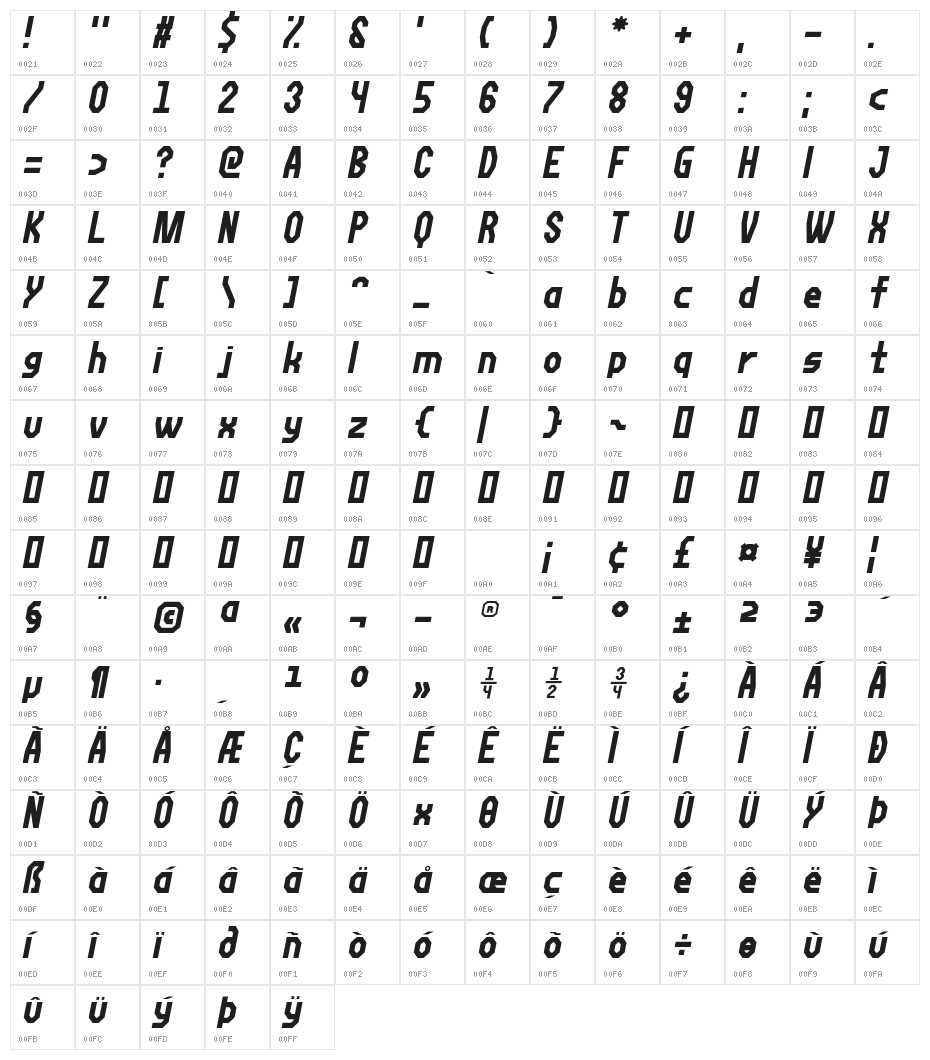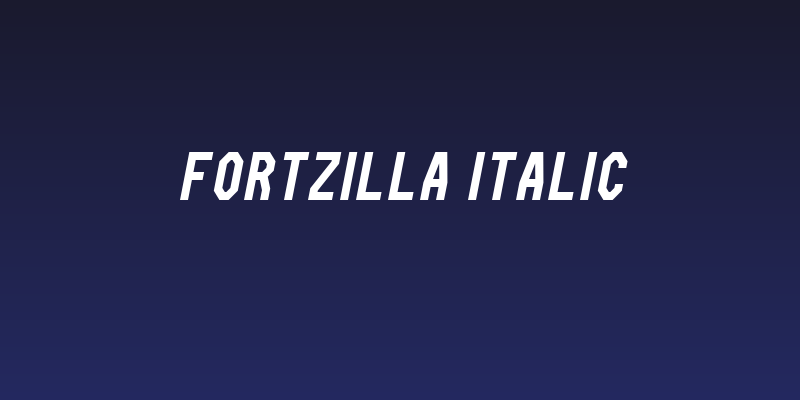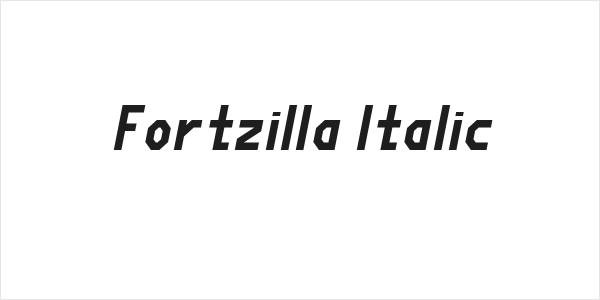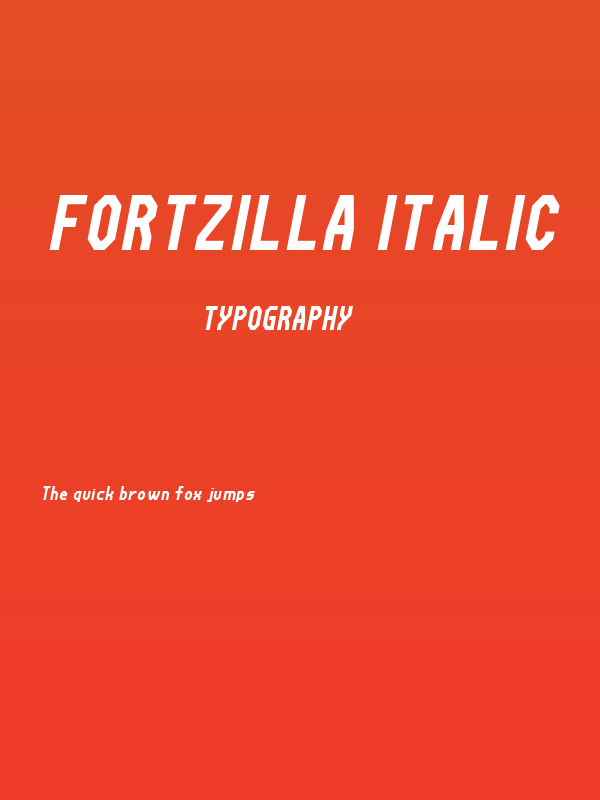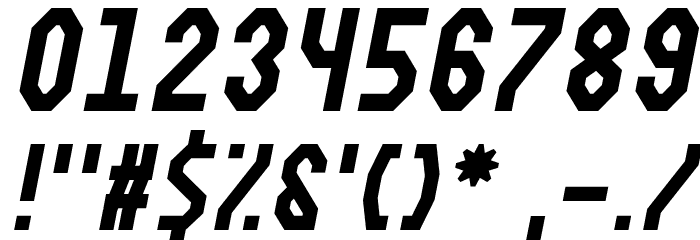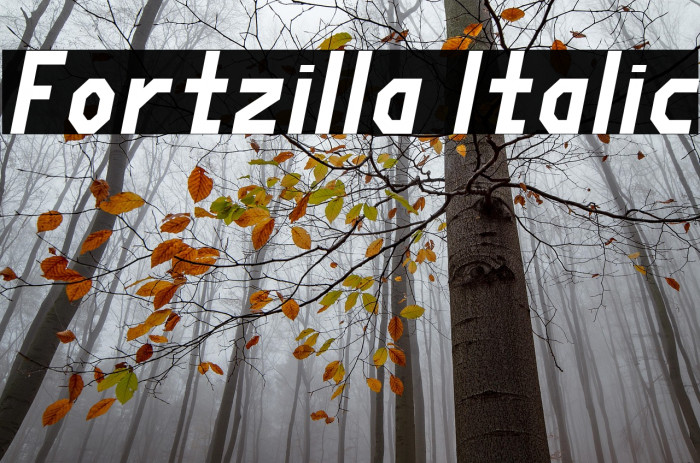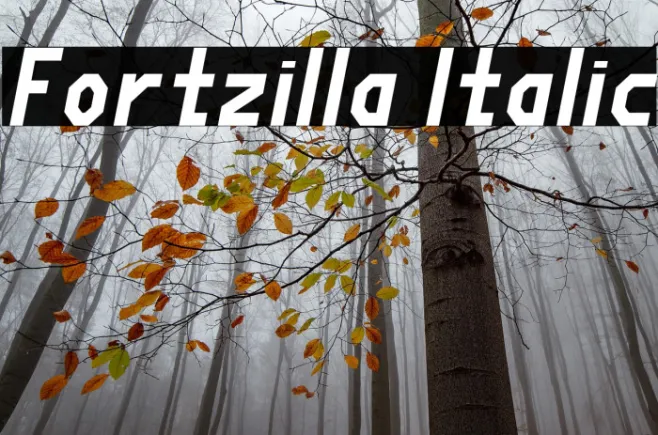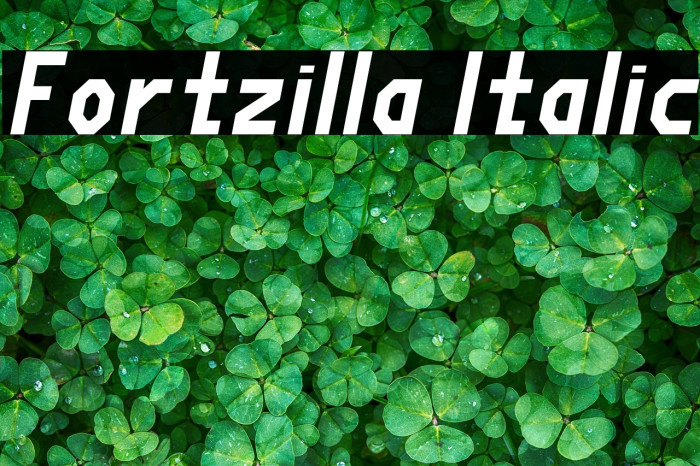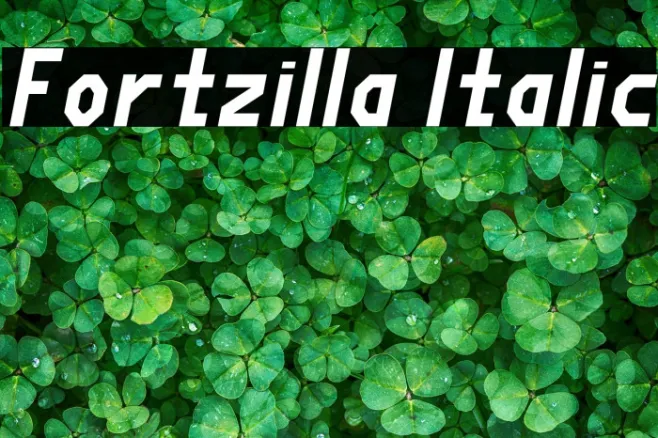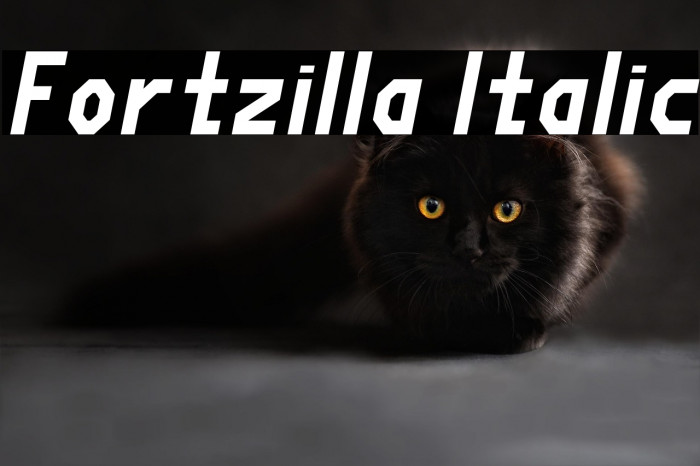
Fortzilla Italic Font
Fortzilla Italic Description
This font features a bold and angular design with a distinct italic slant, giving it a dynamic and energetic appearance. The characters are crafted with sharp edges and a geometric style, which adds a modern and futuristic touch. The uppercase and lowercase letters maintain a consistent style, with the uppercase being slightly more pronounced. Numbers and special characters follow the same angular theme, ensuring uniformity across all glyphs. The font's unique style makes it stand out, suitable for projects that require a strong visual impact.
| Proposed Projects | Ideal for branding, posters, video game graphics, and any project needing a bold, futuristic look. |